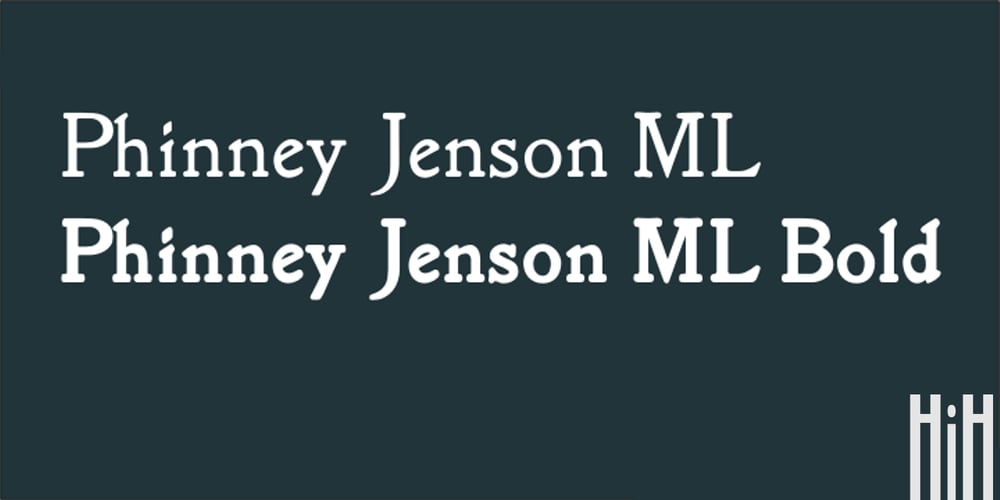
Phinney Jenson
Phinney Jenson font
Phinney Jenson Font Family was designed by Joseph W. Phinney and published by HiH. Phinney Jenson contains 2 styles and family package options. Phinney Jenson ML is a font with deep historical roots firmly planted in the fertile soil of the Italian Renaissance. Twenty years after Lorenzo Ghiberti finished his famous East Doors, the Gates of Paradise, of Santa Maria del Fiore in Florence and about fifteen years before Sandro Botticelli painted his “Birth of Venus,” a French printer by the name of Nicolas Jenson set up a small print shop in the powerful city-state of Venice. The fifteenth century marked the end of the plague and the rise of Venetian power, as the merchants of Venice controlled the lucrative trade of the eastern Mediterranean and sent their ships as far as London and even the Baltic. In 1470, Jenson introduced his Roman type with the printing of De Praeparatio Evangelica by Eusebuis. He continued to use his type for over 150 editions until he died in 1480. In 1890 a leader of the Arts & Crafts movement in England named William Morris founded Kelmscott Press. He was an admirer of Jenson’s Roman and drew his own somewhat darker version called GOLDEN, which he used for the hand-printing of limited editions on homemade paper, initiating the revival of fine printing in England. Morris’ efforts came to the attention of Joseph Warren Phinney, manager of the Dickinson Type Foundry of Boston. Phinney requested permission to issue a commercial version, but Morris was philosophically opposed and flatly refused. So Phinney designed a commercial variation of Golden type and released it in 1893 as Jenson Oldstyle. Phinney Jenson is our version of Phinney’s version of Morris’ version of Nicolas Jenson’s Roman. We selected a view of the Piazza San Marco in Venice for our gallery illustration of Phinney Jenson ML because most of the principal buildings on the Piazza were already standing when Jenson arrived in Vienna in 1470. The original Campanile was completed in 1173 (the 1912 replacement is partially visible on the left). The Basilica di San Marco was substantially complete by 1300. The Doge’s Palace (not in the photo, but next to the Basilica) was substantially complete by 1450. Even the Torre dell’Orologio (Clock Tower) may have been completed by 1470—certainly by 1500. Phinney Jenson ML has a “rough-and-ready” strength, suitable for headlines and short blocks of text. We have sought to preserve some of the crudeness of the nineteenth-century original. For comparison, see the more refined Centaur, Bruce Rogers’s interpretation of Jenson Roman. Phinney Jenson ML has a strong presence that will help your documents stand out from the Times New Roman blizzard that threatens to cover us all. Phinney Jenson ML Features: 1. Glyphs for the 1252 Western Europe, 1250 Central Europe, the 1252 Turkish and the 1257 Baltic Code Pages. Accented glyphs for Cornish and Old Gaelic. Total of 393 glyphs. 400 kerning pairs. 2. OpenType GSUB layout features: onum, pnum, salt, liga, dlig, hisy and ornm. 3. Tabular (std), proportional (opt) & old-style numbers (opt). 5. CcNnOoSsZz-kreska available (salt).